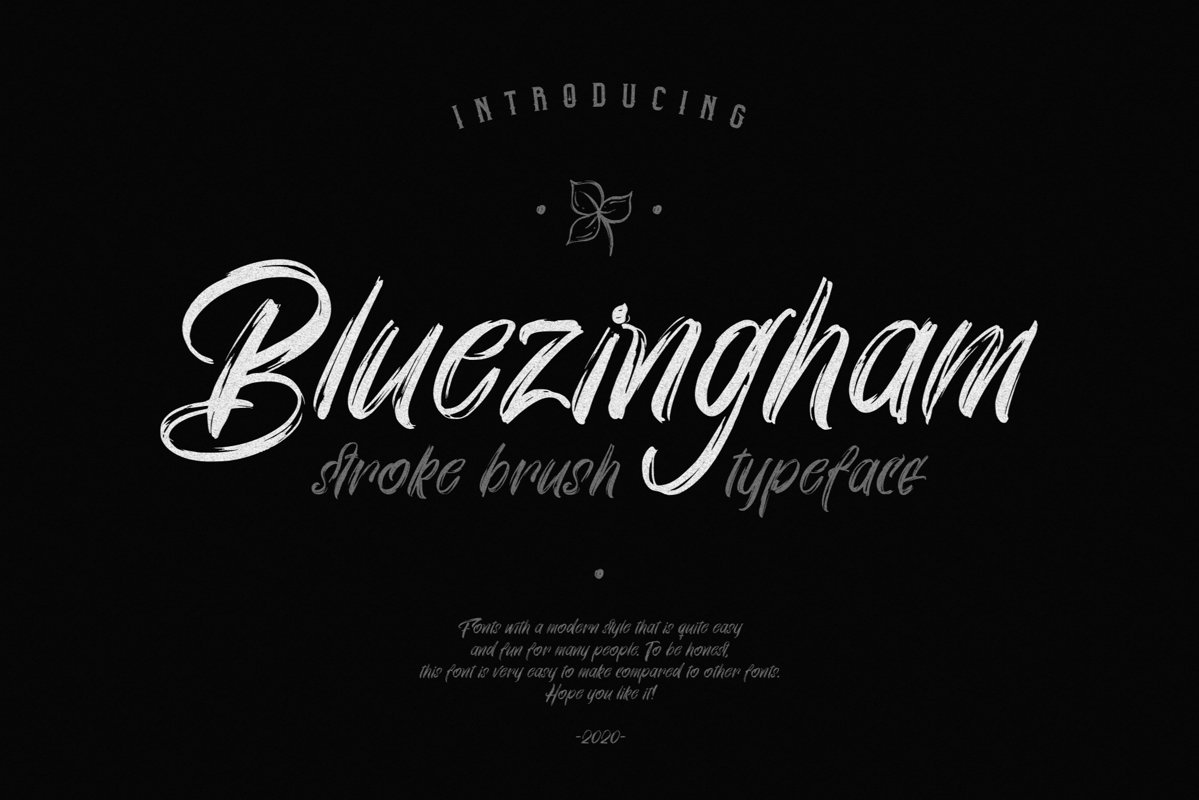
Bluezingham
BLUEZINGHAM is a brush font with thick scratches that looks like brush strokes. Will be very suitable for the purposes of branding, social media, promotion of both digital and print media.
Features : Alternate Characters. Ligatures. Discretionary Ligatures. Support Multilingual Characters.